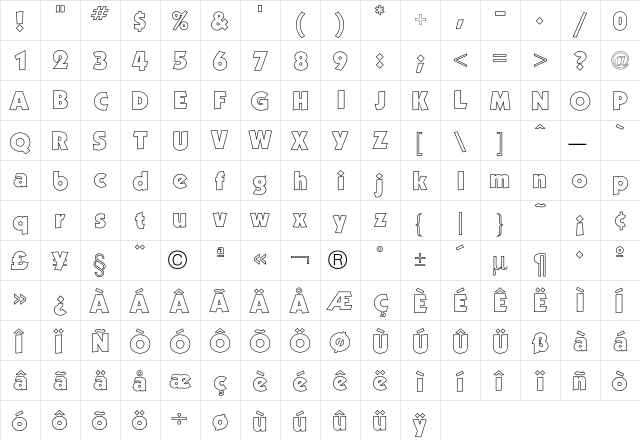
Kabel Outline
Design Context for Kabel Typeface
Kabel is built around its visual character rather than neutral utility — its distinctive forms are designed to make an impression at display sizes.
Font Pairing: Pair with a clean neutral sans-serif for body copy to let Kabel's character lead without overwhelming the composition.
Pro Tip: Treat Kabel as the centrepiece of your typographic hierarchy. One strong heading set in a decorative face can carry an entire layout.